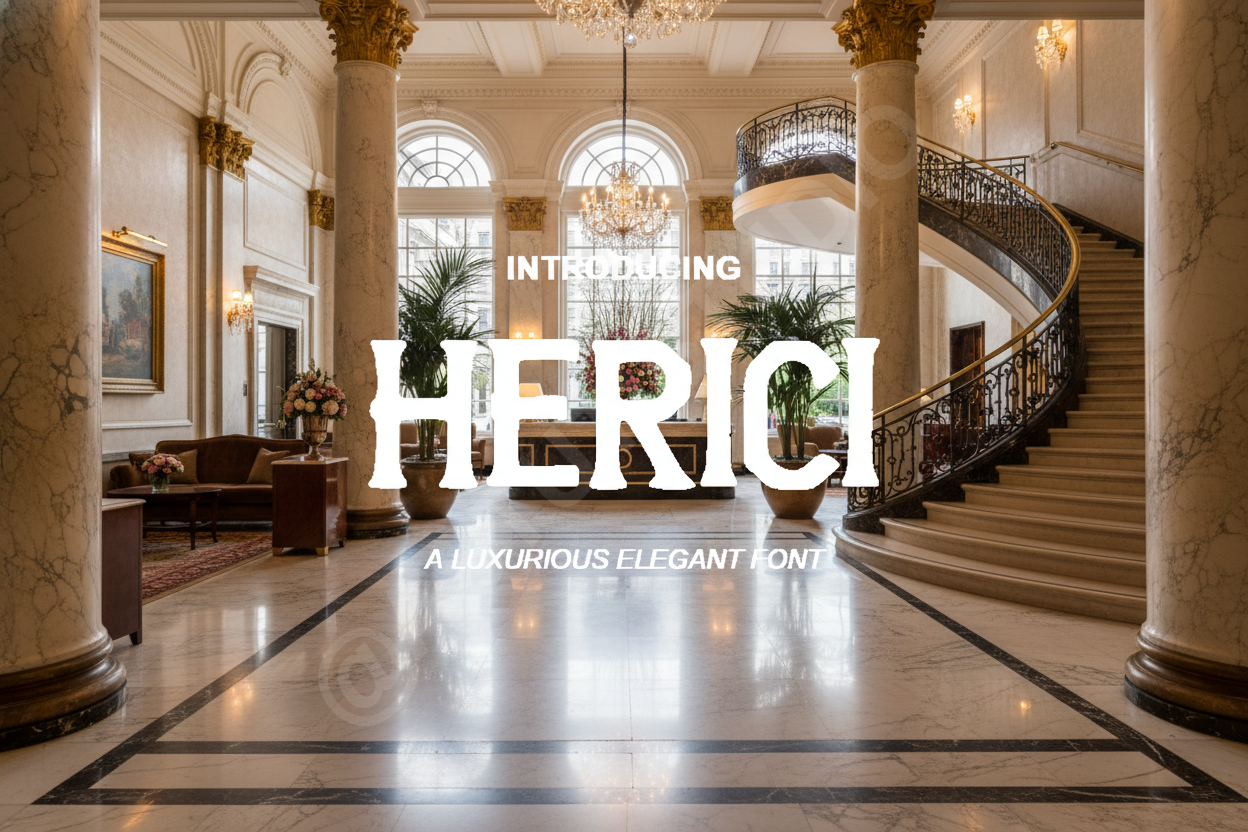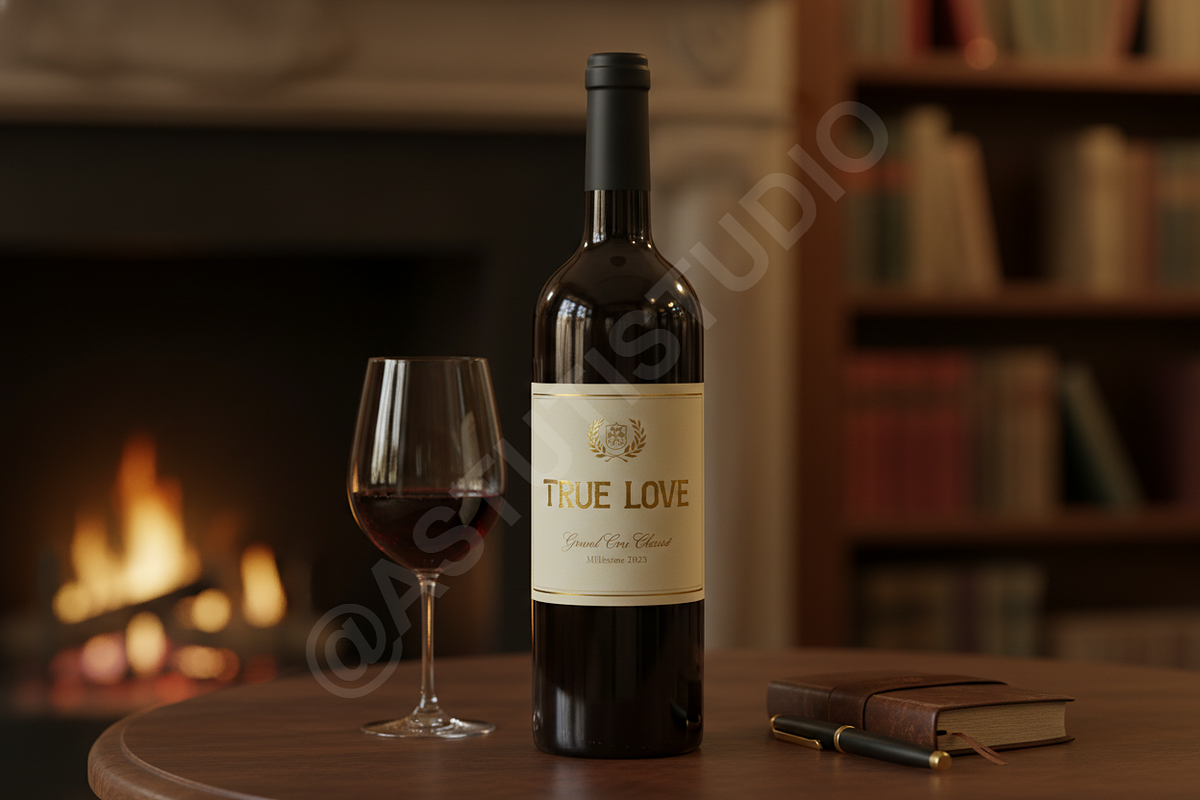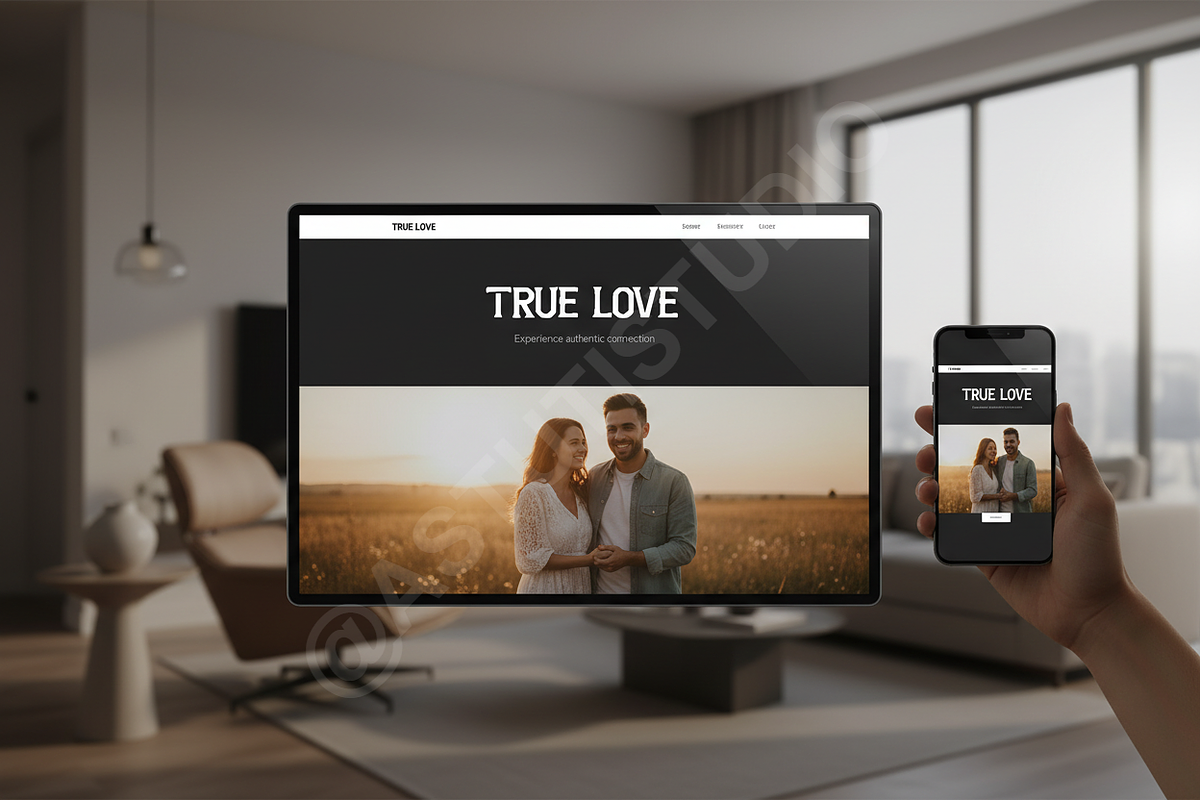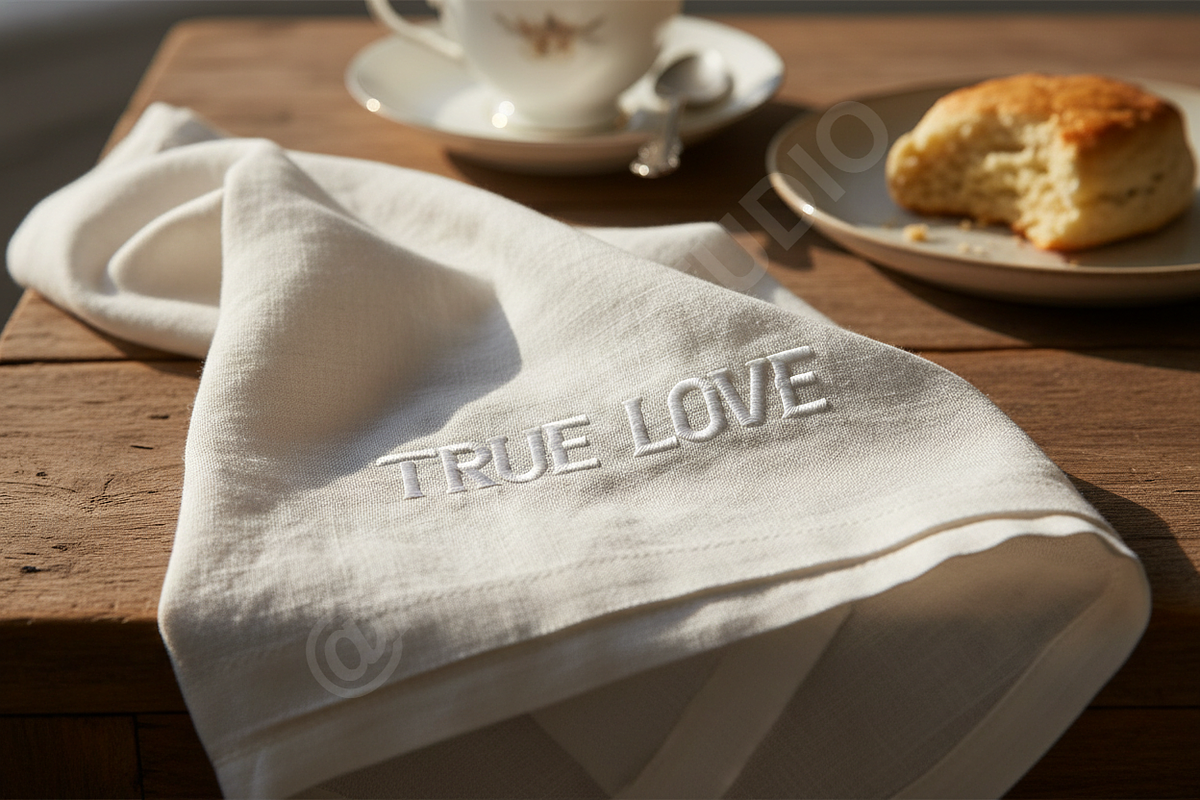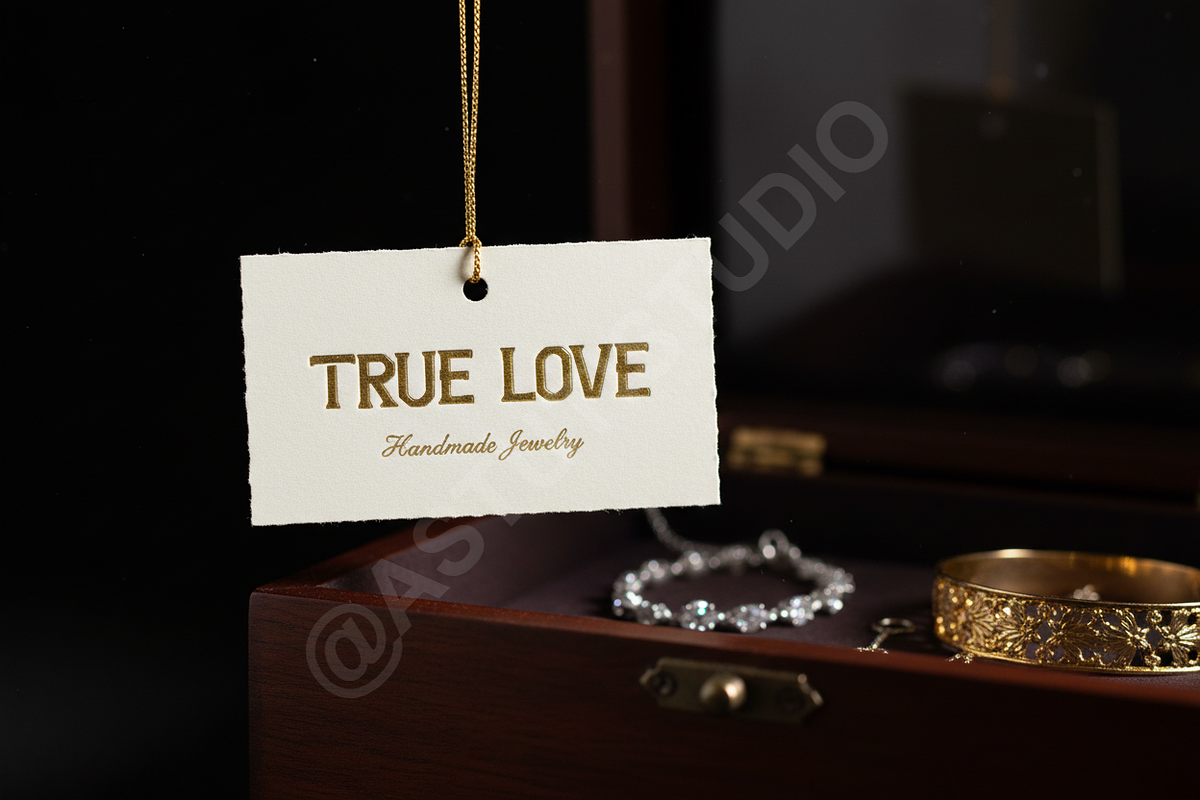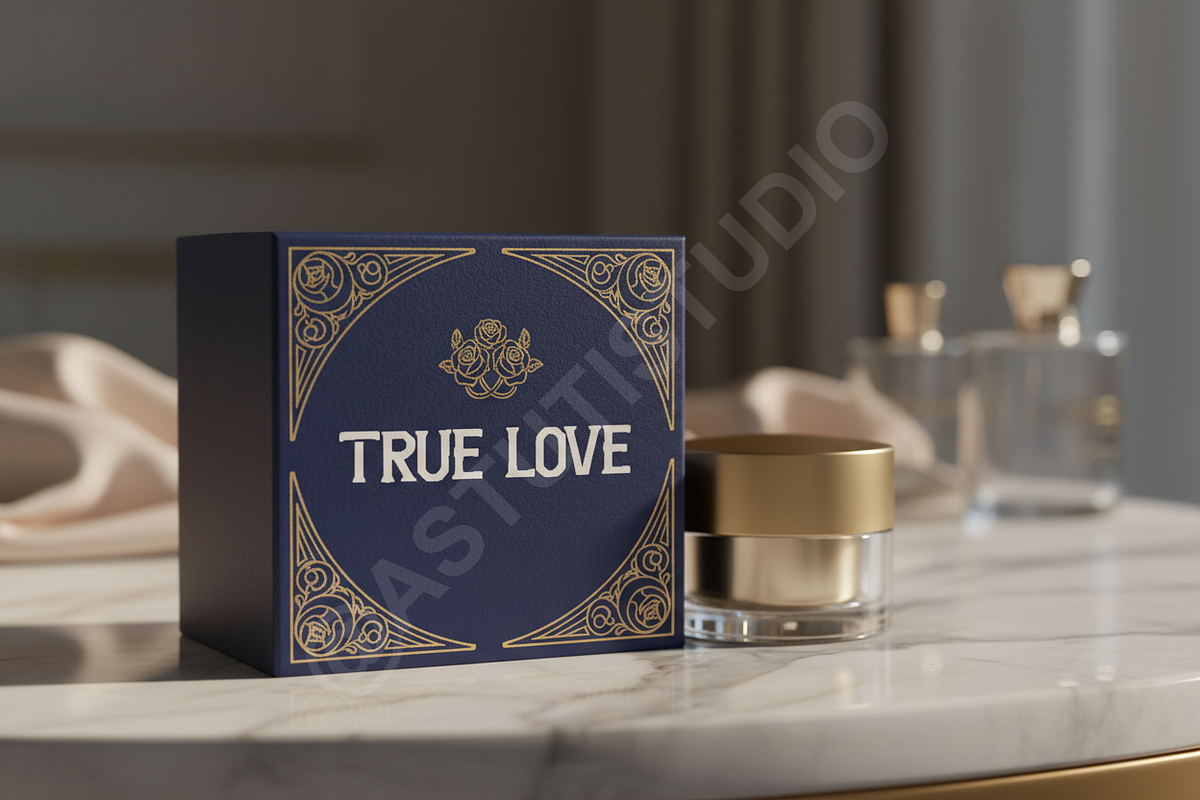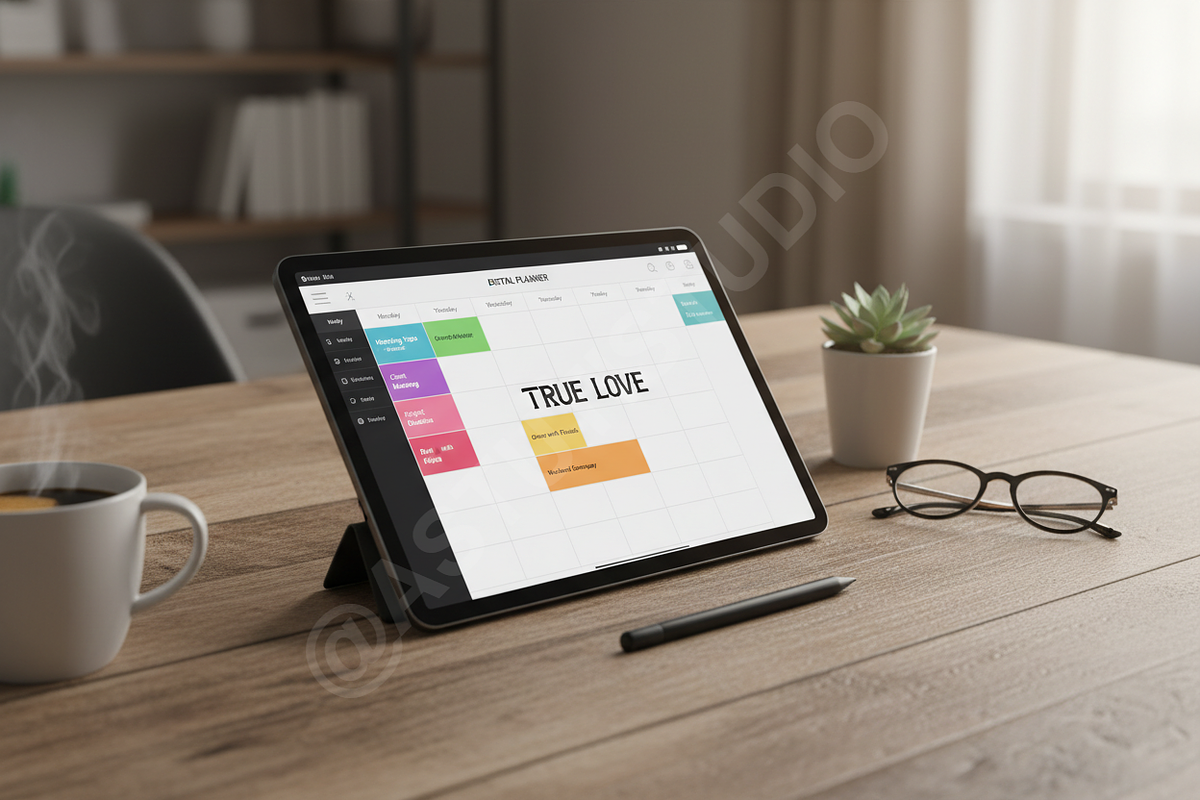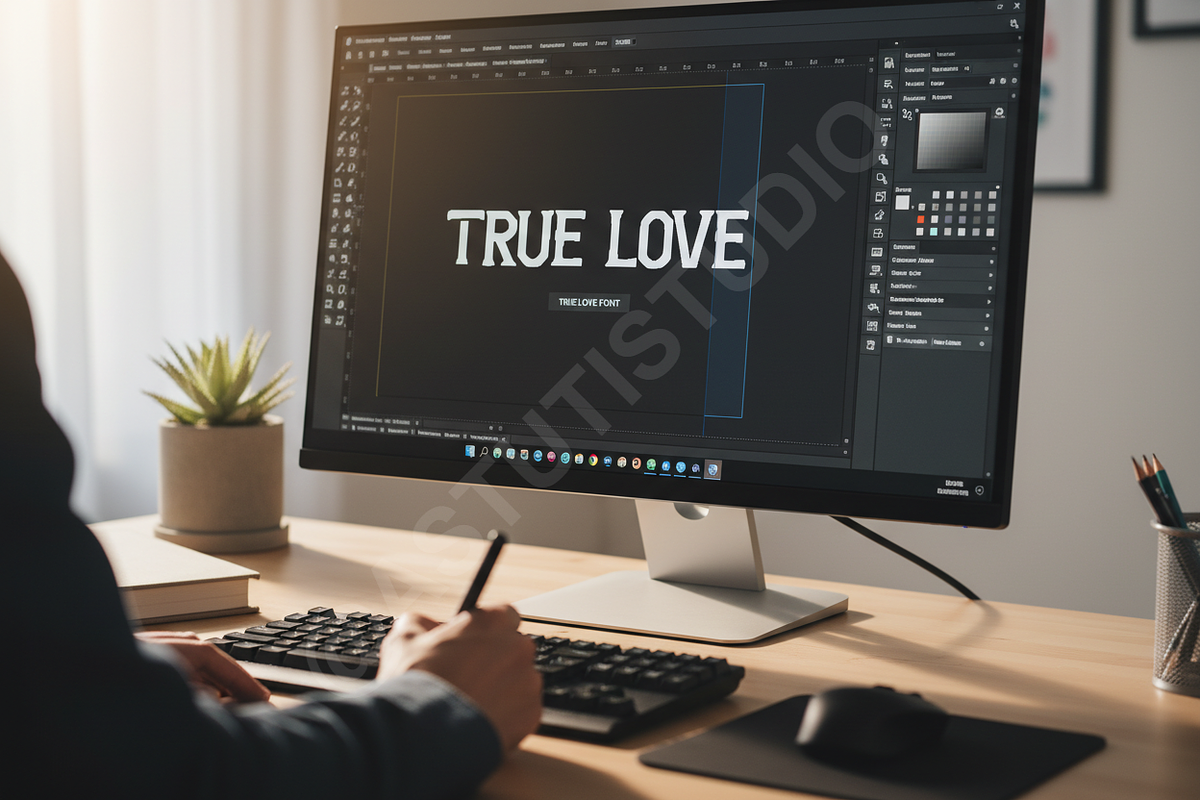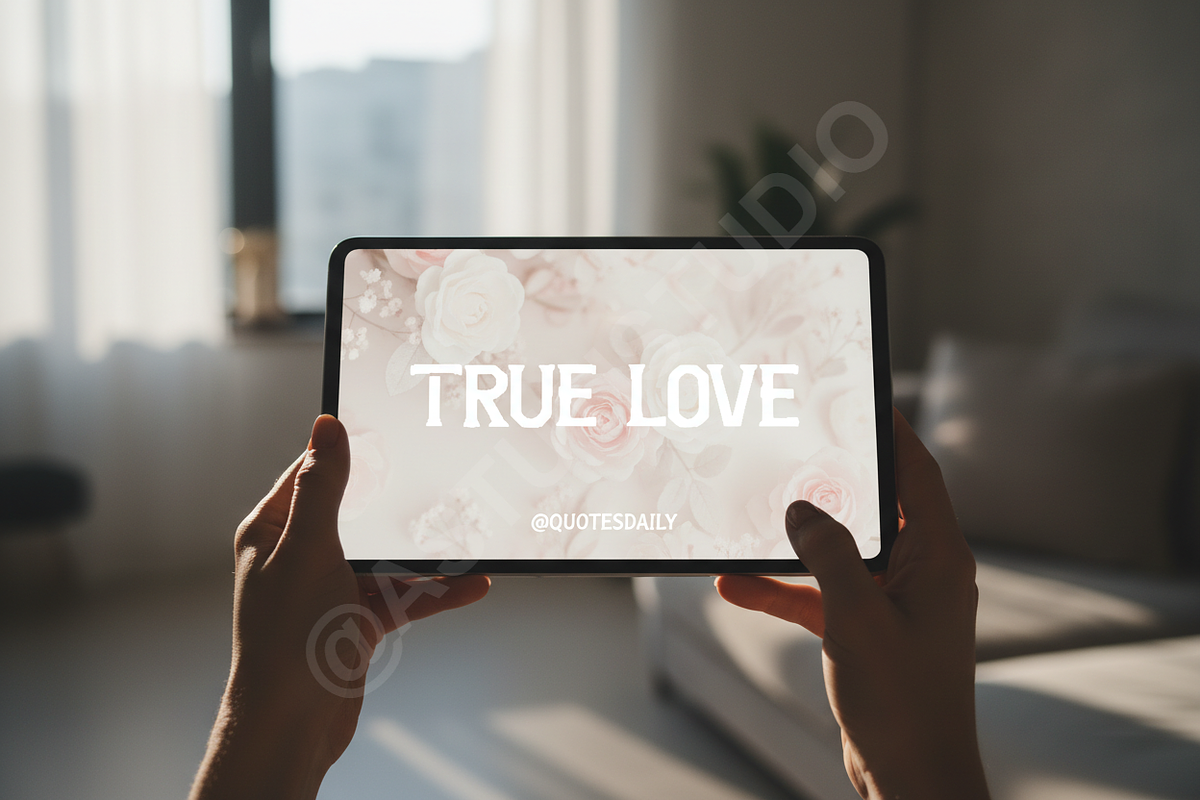
Herici - Elegant Serif Typeface
Introduction Herici is a premium serif typeface meticulously crafted for high-end aesthetic projects. Inspired by the golden age of editorial design, it blends timeless classicism with modern sophistication. Herici is designed to elevate your visual storytelling, making it the perfect choice for luxury branding, high-fashion magazine layouts, and curated social media content.
- Elegant high-contrast strokes for a refined look
- An extensive set of ligatures for custom typographic flair
- Comprehensive multilingual support for global projects
- Balanced kerning optimized for both digital and print
- Clean, sharp edges that maintain legibility at all sizes
- Comprehensive character set including uppercase, lowercase, and punctuation
- Access to specialized stylistic alternates